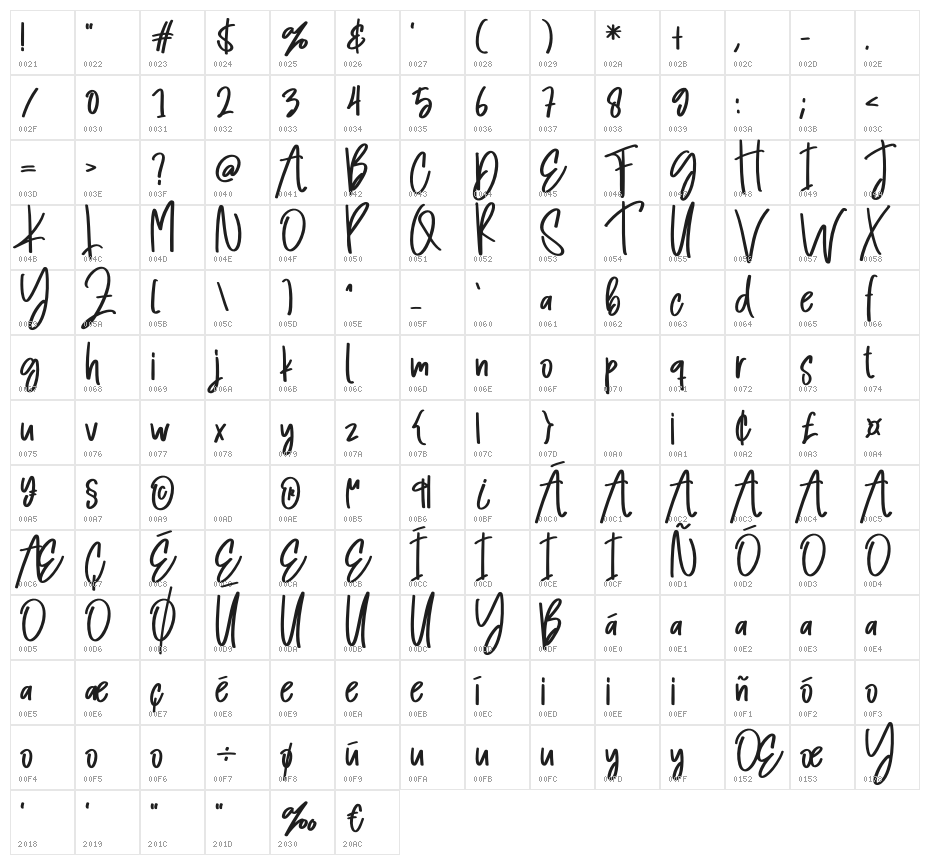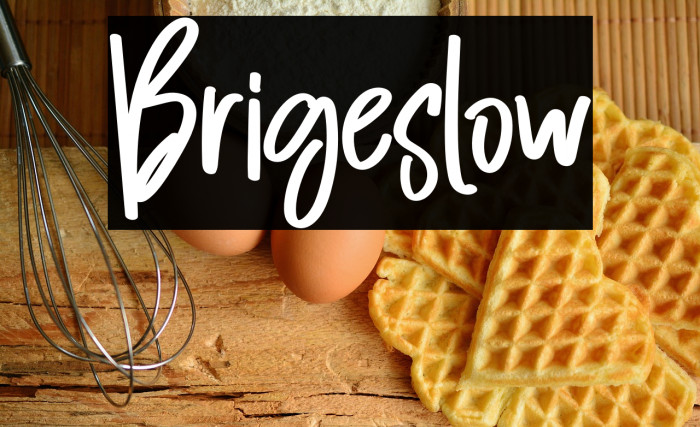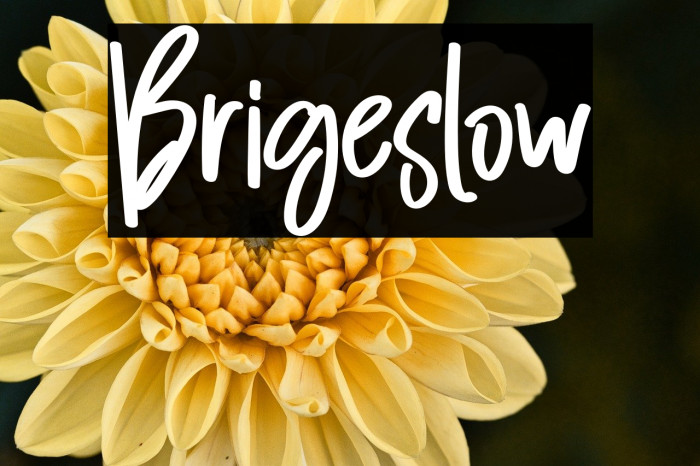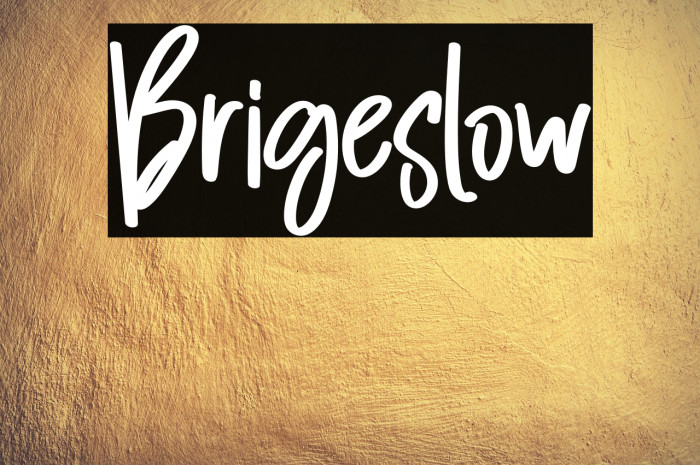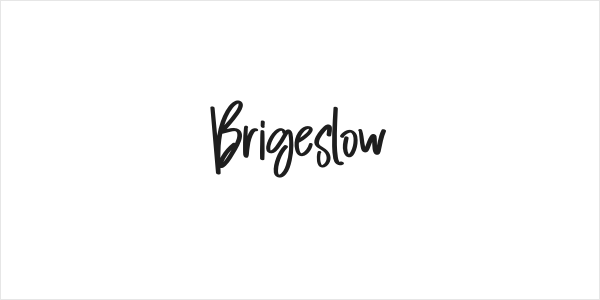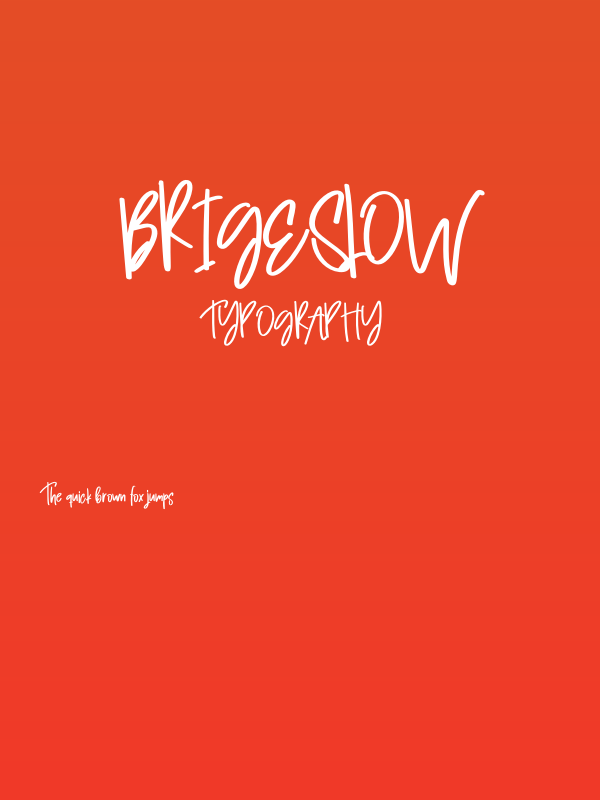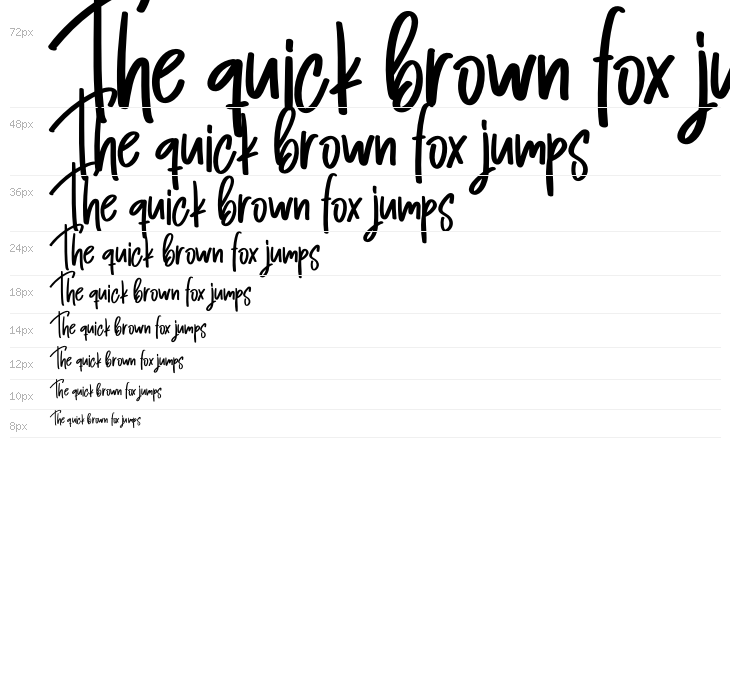
Brigeslow Font
Brigeslow Description
This font features a lively and energetic handwritten style, characterized by its bold and expressive strokes. The uppercase letters are tall and slightly narrow, with a playful and informal appearance. The lowercase letters maintain a consistent flow, enhancing the font's casual and approachable nature. Numbers and special characters are crafted with the same dynamic flair, ensuring a cohesive look across all elements. The overall design exudes a sense of creativity and spontaneity, making it ideal for projects that require a personal touch.
| Width | Condensed |
| Use Case | Logos, Headlines, Social media graphics |
| Proposed Projects | Ideal for greeting cards, social media graphics, personal branding, and creative projects that require a personal and dynamic touch. |